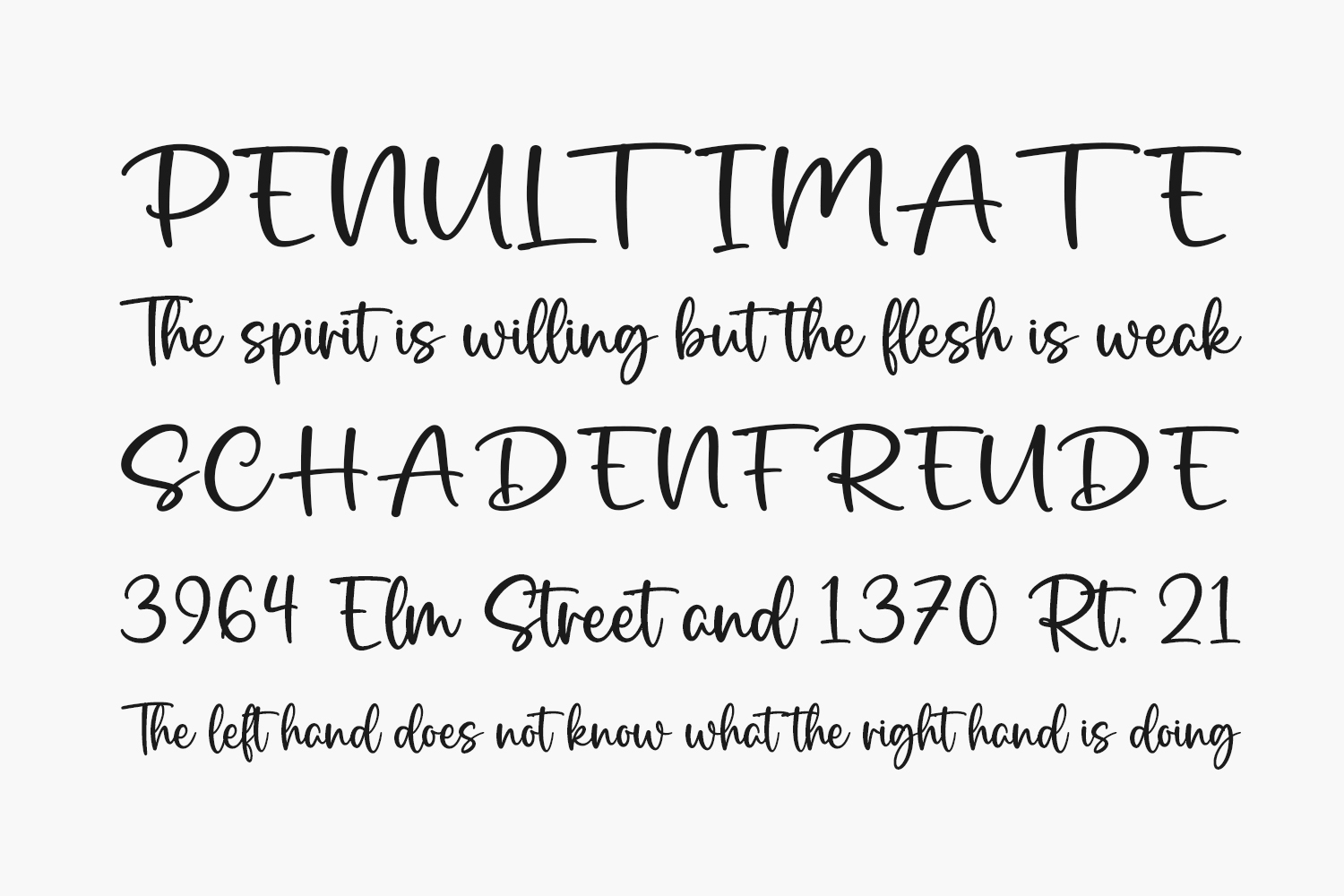
Palm Spring Free Font comprises a harmonious script font meticulously crafted to complement one another seamlessly. Whether used together or individually, these fonts are the perfect choice for infusing your creative projects with a stylish and cheerful vibe. Palm Spring Free Font is free for personal use only. Please purchase the full version for commercial use.